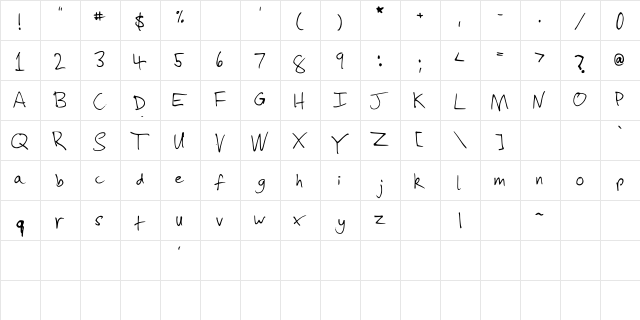
Slevdog 2 Medium
Design Context for Slevdog 2 Typeface
Slevdog 2 is a composed and adaptable typeface that performs quietly and consistently across a wide range of design contexts.
Pro Tip: Use Slevdog 2 in both headline and body roles to test its range before committing to a single application.